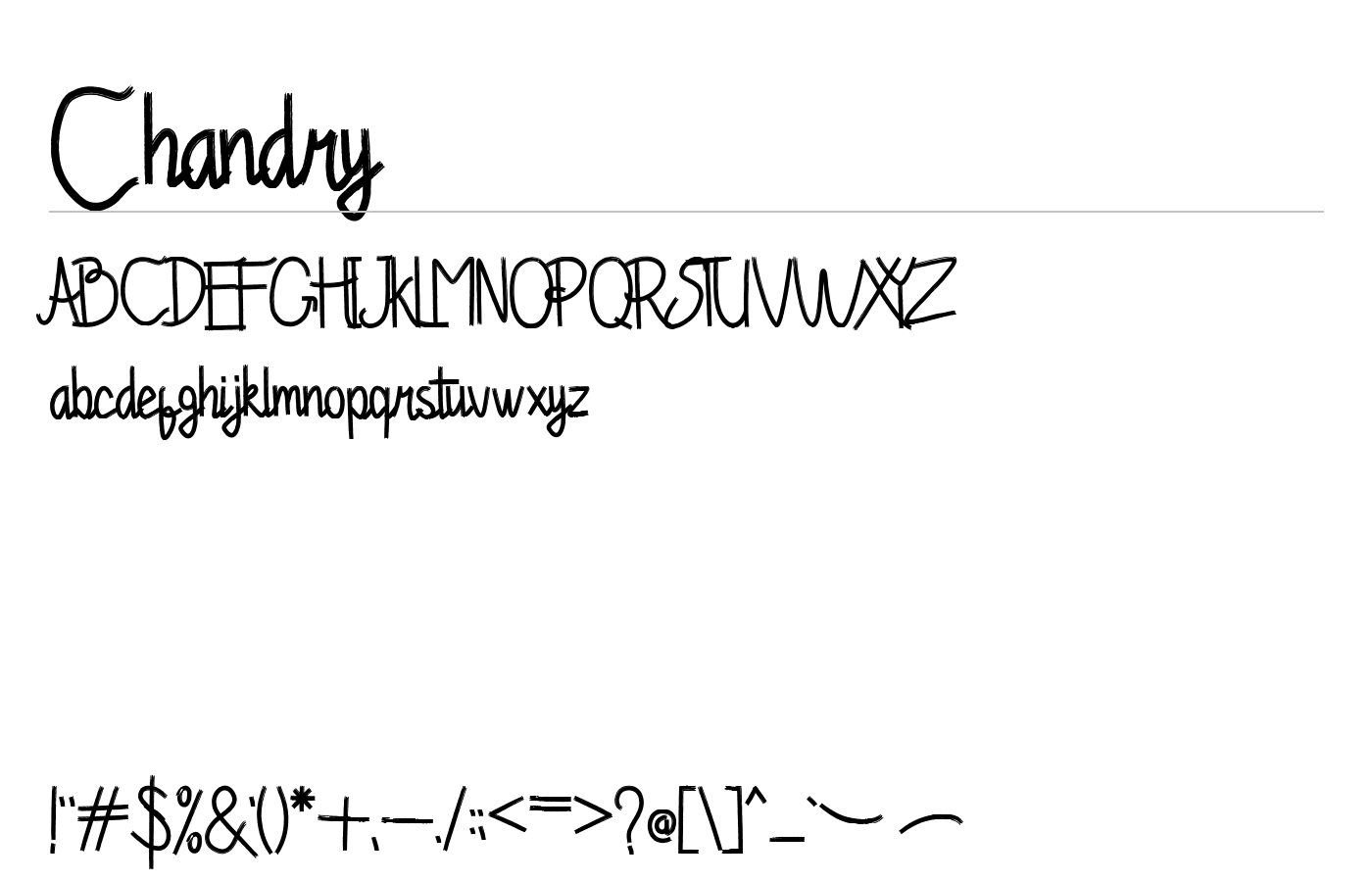
Chandry is a playful, hand-drawn script font featuring tall, narrow letterforms with a slightly uneven, casual stroke that adds a personal and artistic touch. Its quirky style and informal vibe make it a great choice for creative projects like greeting cards, playful branding, and posters where a unique, approachable personality is desired. This font works best for headlines or display use, adding charm and character without overwhelming the design.
Chandry Font
About Chandry Font